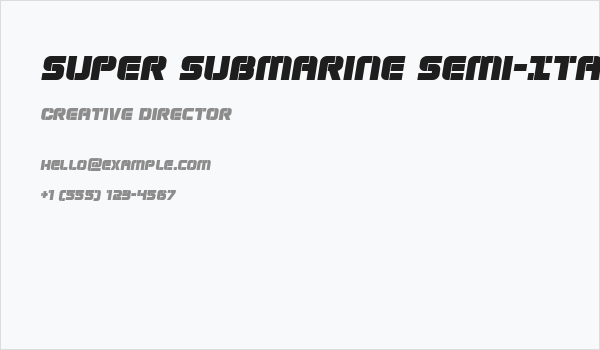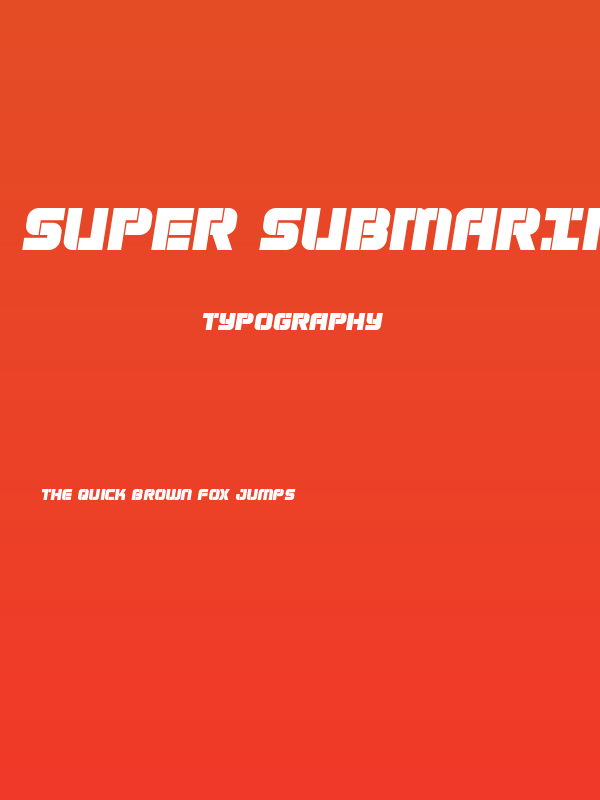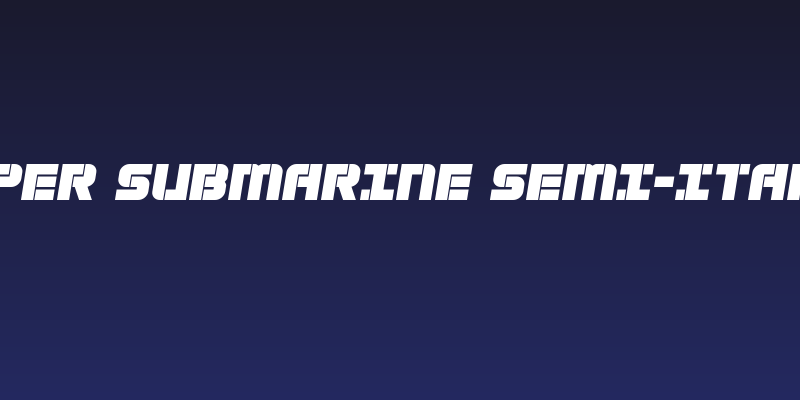
Super Submarine Semi-Italic Font
Super Submarine Semi-Italic Description
This font features a bold, futuristic design with a semi-italic slant, giving it a dynamic and forward-moving appearance. The characters are wide and blocky, with a distinct geometric style that emphasizes sharp angles and clean lines. The uppercase letters are particularly striking, with consistent height and width, while the lowercase letters maintain a similar aesthetic, ensuring uniformity across text. Numbers and special characters are designed to match the boldness and style of the alphabet, making them suitable for a variety of uses. The overall look is modern and impactful, ideal for projects that require a strong visual presence.